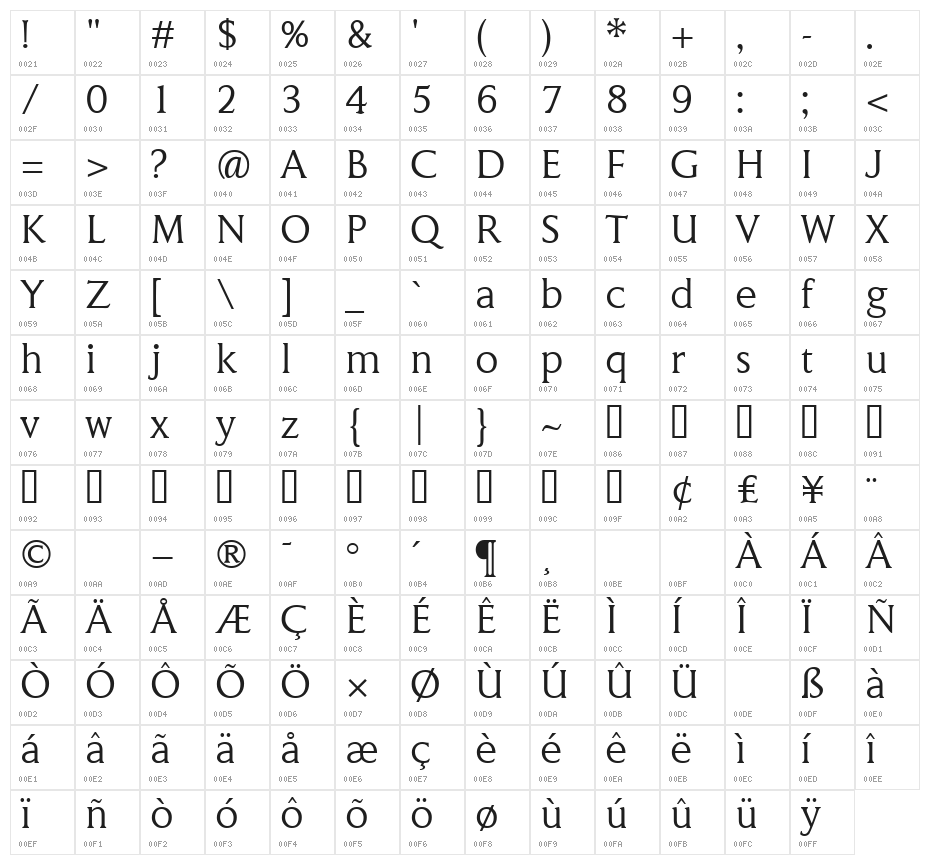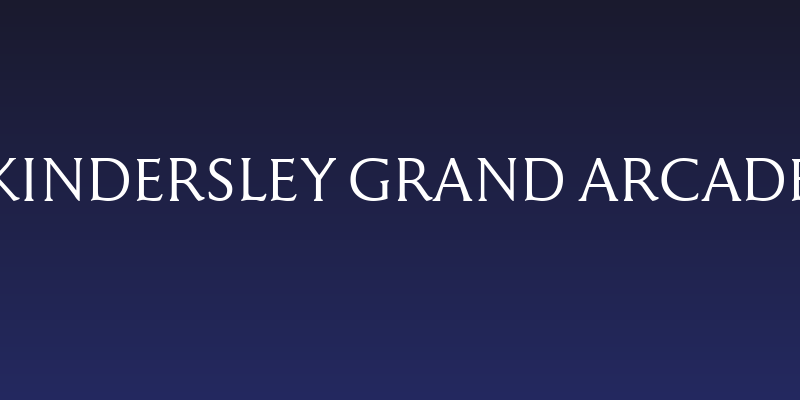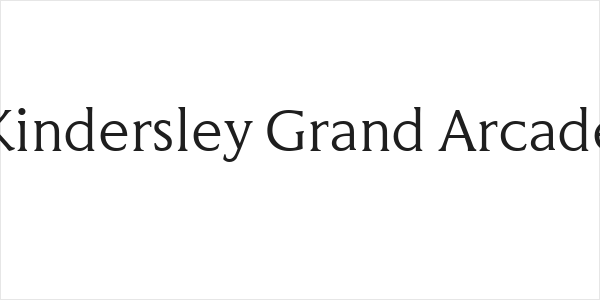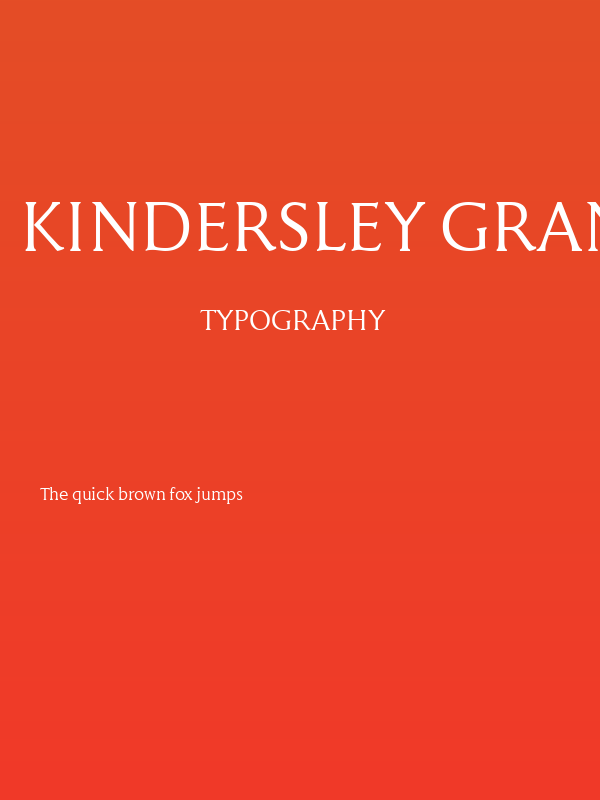
Kindersley Grand Arcade Font
Kindersley Grand Arcade Description
This font exhibits a classic serif style with a modern twist, characterized by its clean and elegant lines. The uppercase letters are bold and authoritative, while the lowercase letters maintain a graceful and readable form. The numerals are well-proportioned, ensuring clarity and balance. Special characters are distinct and harmonize well with the overall design. The font's structure is both traditional and contemporary, making it versatile for various applications.
| Proposed Projects | Ideal for editorial design, book covers, formal invitations, and corporate branding. |